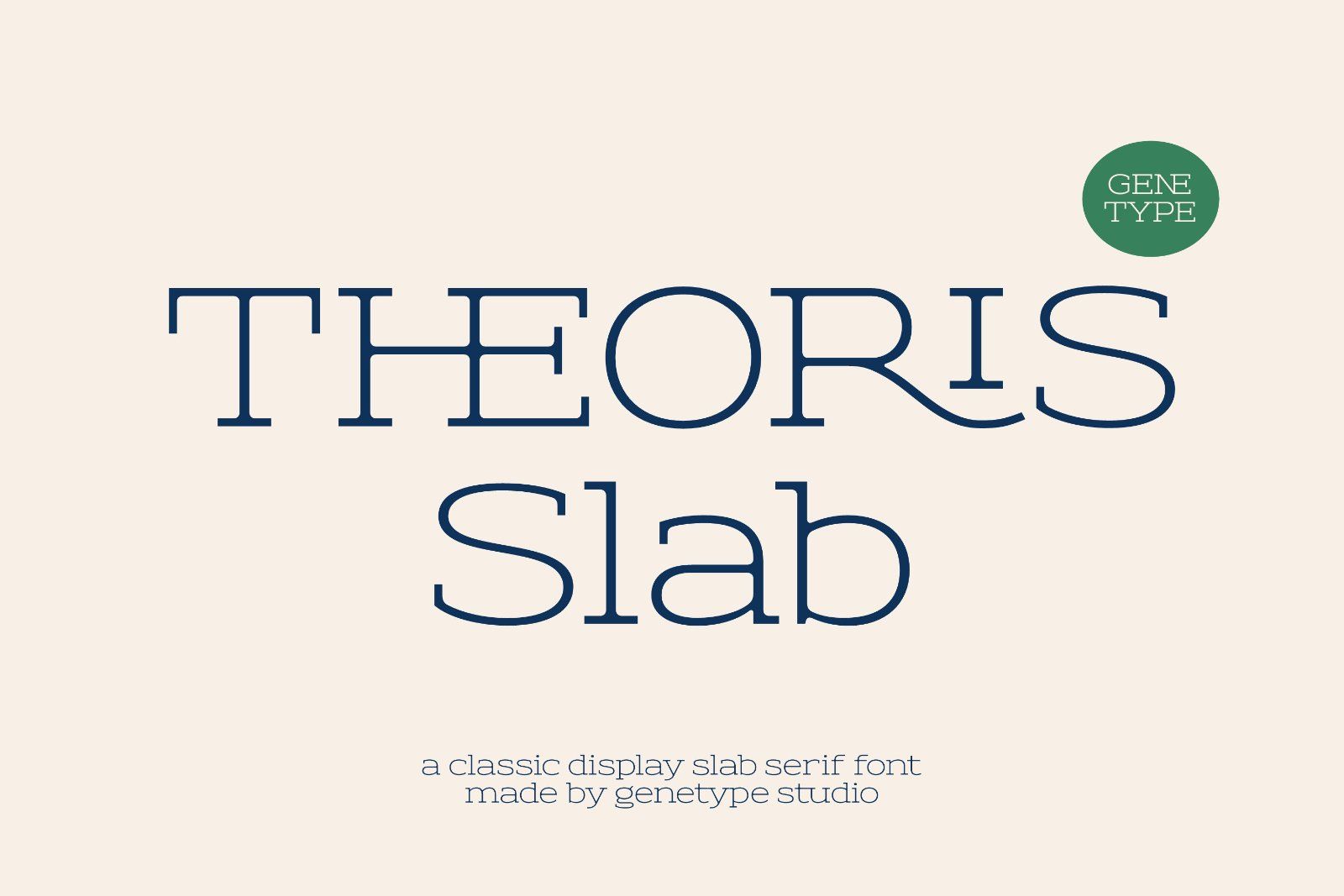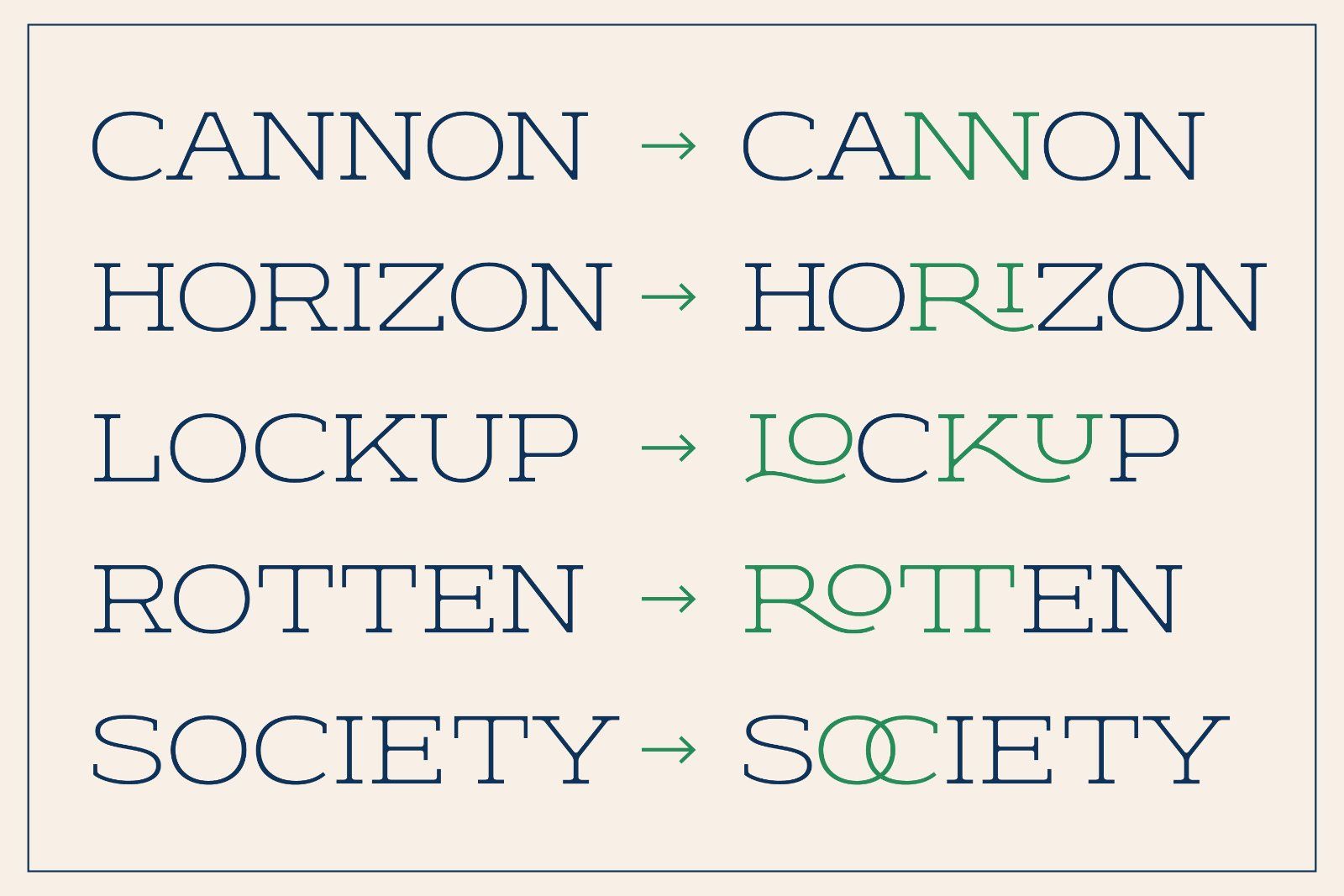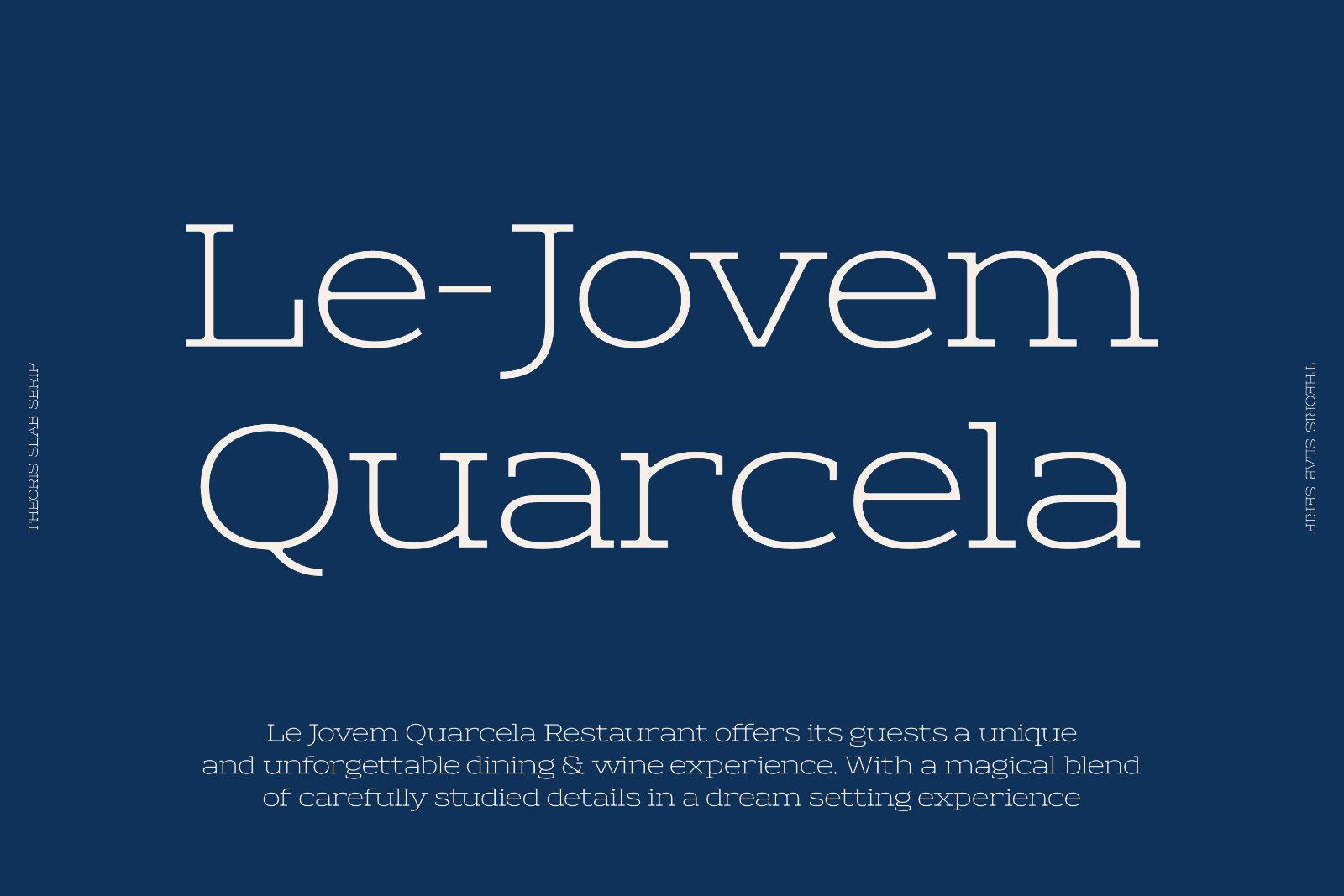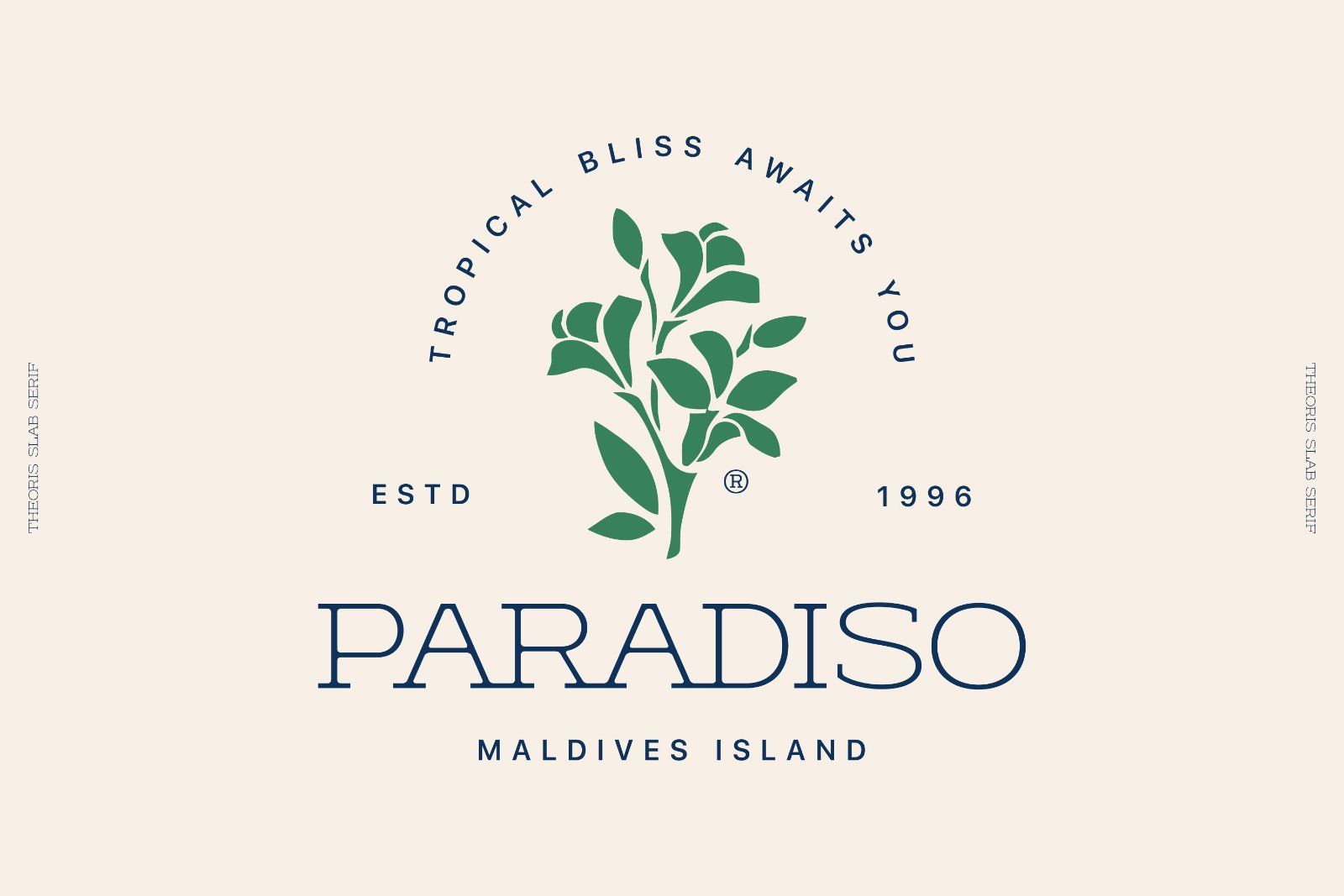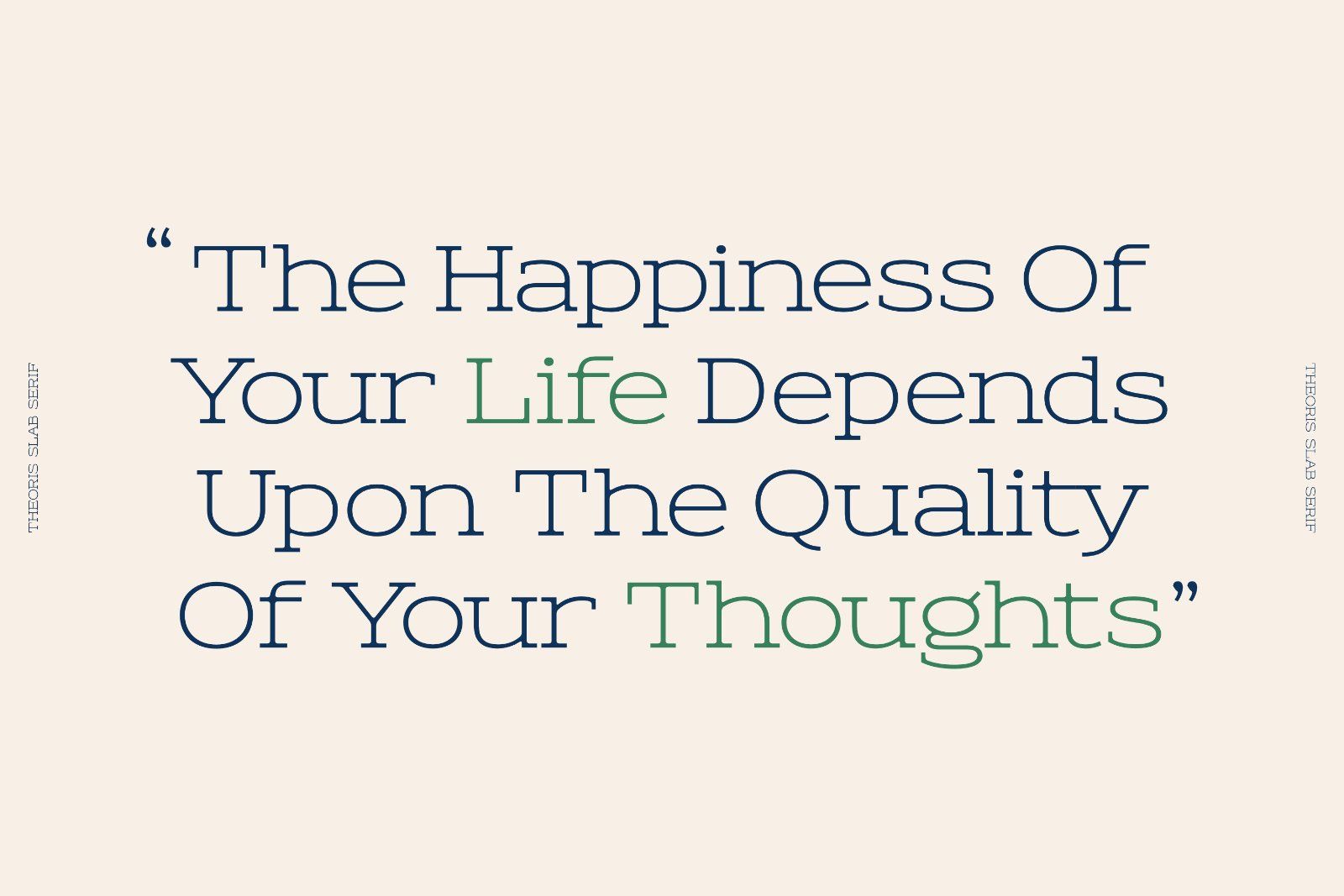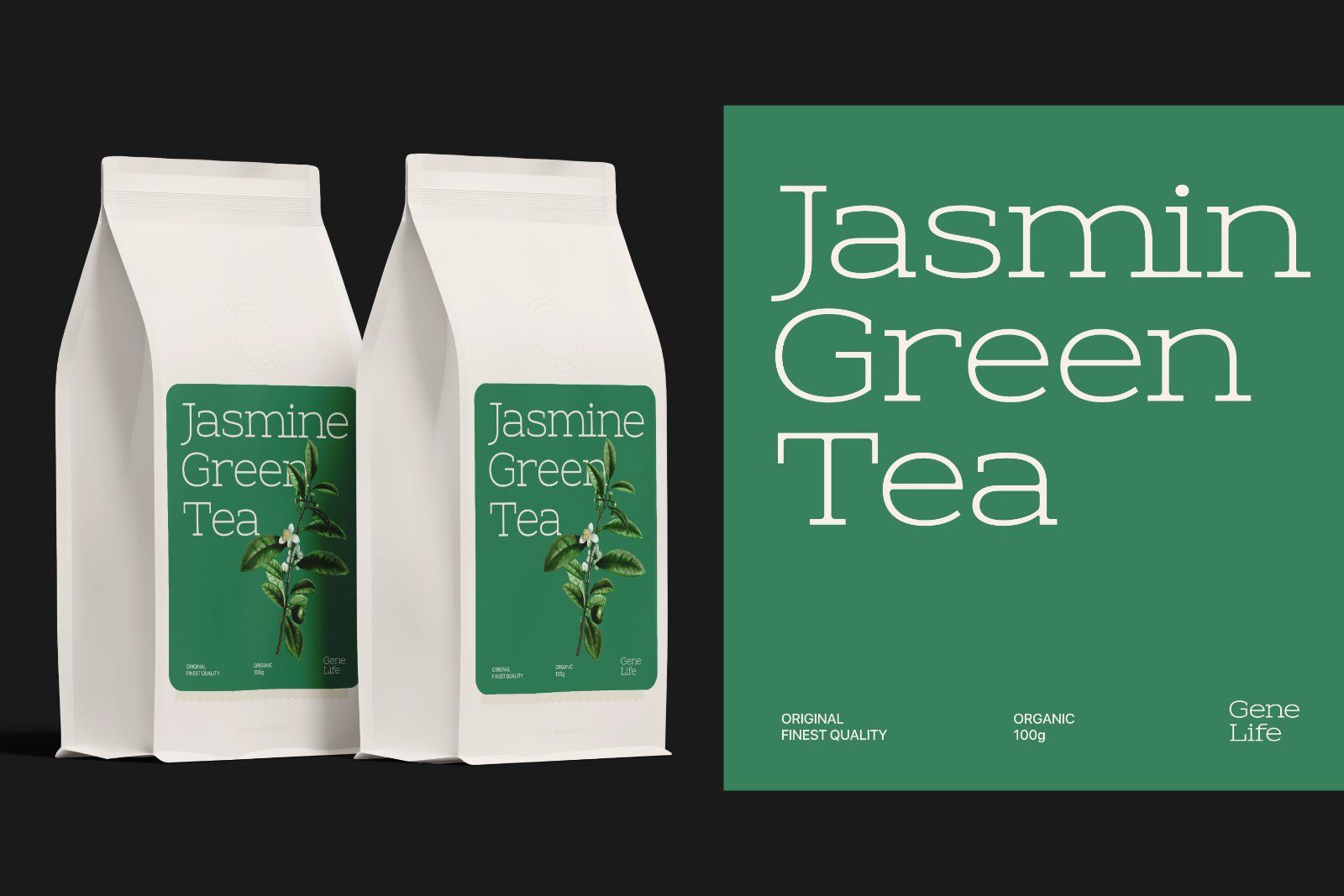
Introducing Theoris, a sleek and modern thin slab serif typeface. This font combines the sturdy presence of slab serifs with a delicate, refined touch. Its thin strokes and sharp serifs create a distinctive contrast, perfect for conveying both strength and elegance in design. Ideal for editorial headings, branding projects, and sophisticated layouts, Theoris stands out with its balanced proportions and contemporary aesthetic. Elevate your typography with Theoris, where minimalism meets timeless style.